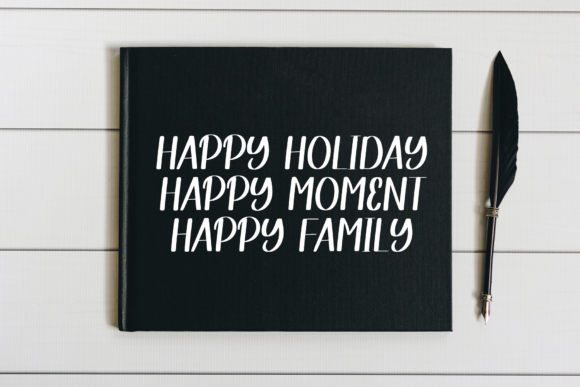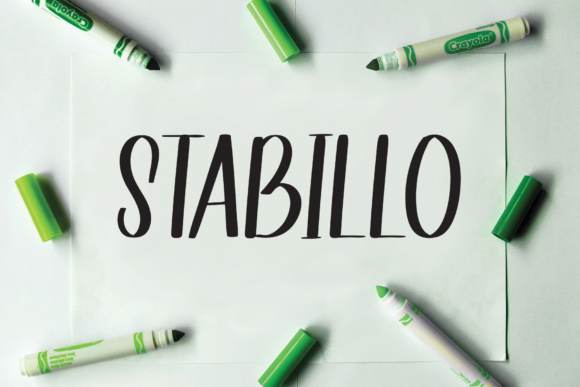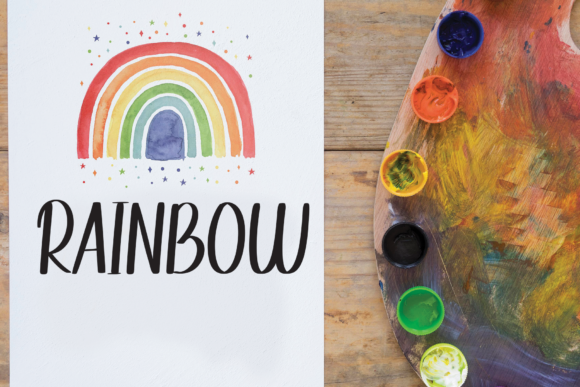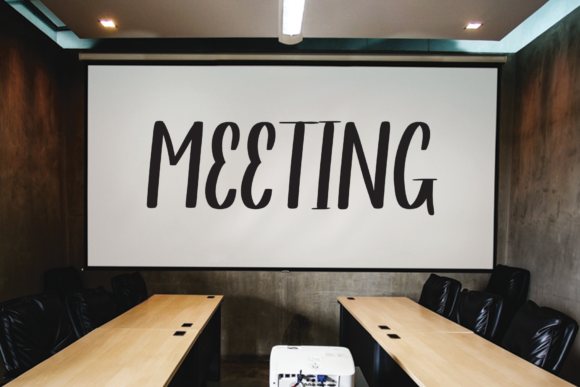
Whitepink Font
About Whitepink Font
Introducing a sweet, bold handwritten font that combines charm with a touch of confidence, featuring beautiful curves in each letter. This font not only captures attention visually but also incorporates PUA coding, ensuring effortless access to a diverse range of glyphs and graceful sweeps for easy customization.
The sweet and bold characteristics of this handwritten font make it a standout choice for projects that require a combination of playfulness and impact. Whether you’re designing eye-catching signage, creating bold product packaging, or making a statement in social media graphics, the beautiful curves in each letter add a touch of personality and flair.
An exceptional feature of this font is its PUA coding, providing users with a user-friendly experience for seamless exploration of its extensive character set. With easy access to all the glyphs and sweeps, designers of any skill level can infuse their projects with unique and personalized touches, adding a bespoke feel to their work.
The beautiful curves present in each letter contribute to the font’s overall charm, making it versatile for a wide range of creative applications. Whether applied to branding, product labels, or editorial designs, the handwritten script imparts a sense of authenticity and energy to the text, enhancing the overall visual experience.
This font’s combination of sweetness and boldness makes it particularly well-suited for creating designs that are not only visually appealing but also exude confidence. From invitations to branding and beyond, its expressive nature adds character and distinction to your projects. The harmonious balance between sweetness and boldness ensures that this font stands out in various creative contexts.
In summary, this sweet and bold handwritten font, with its beautiful curves and PUA coding, offers a perfect blend of visual appeal and functionality. It invites designers to infuse their projects with creativity and individuality, making it an excellent choice for those seeking a versatile and expressive typographic solution.